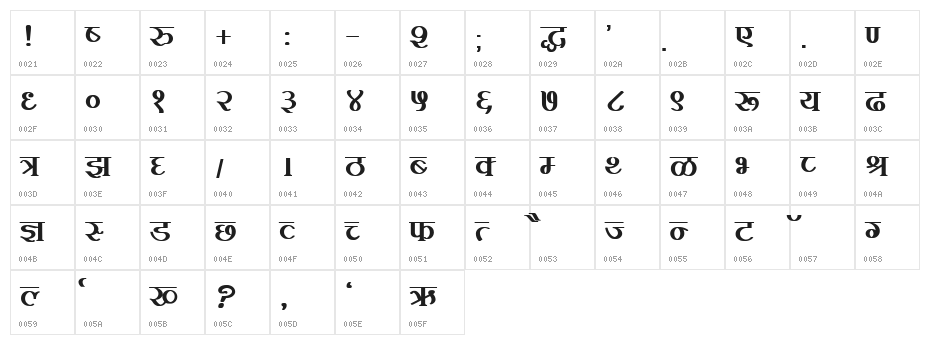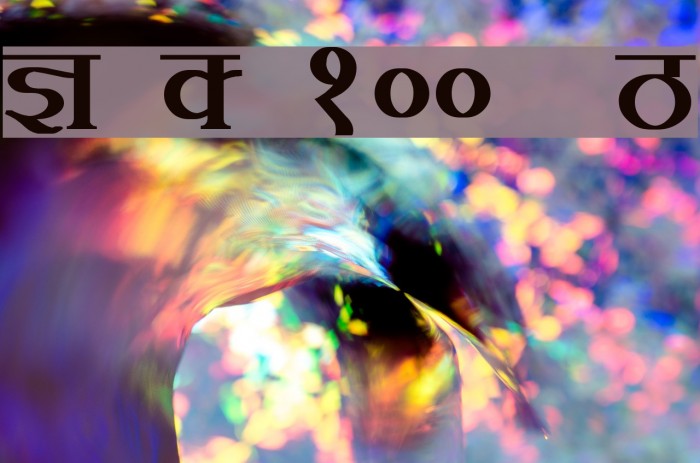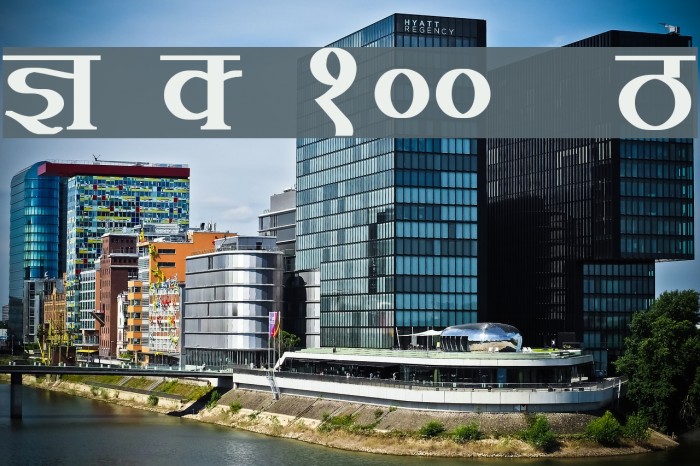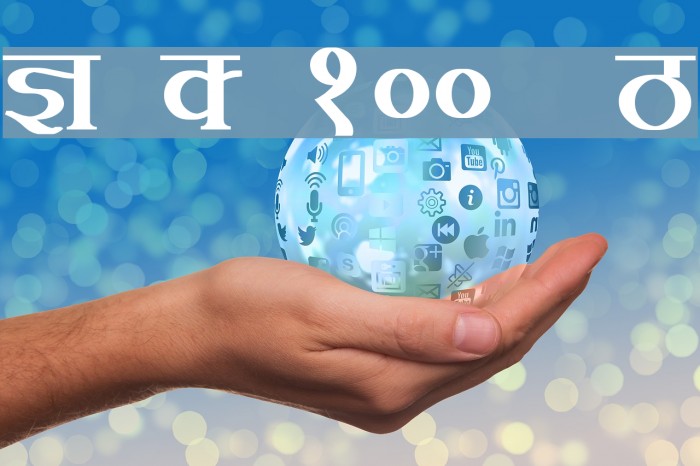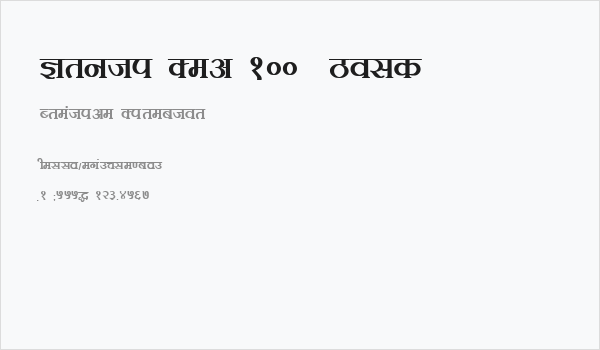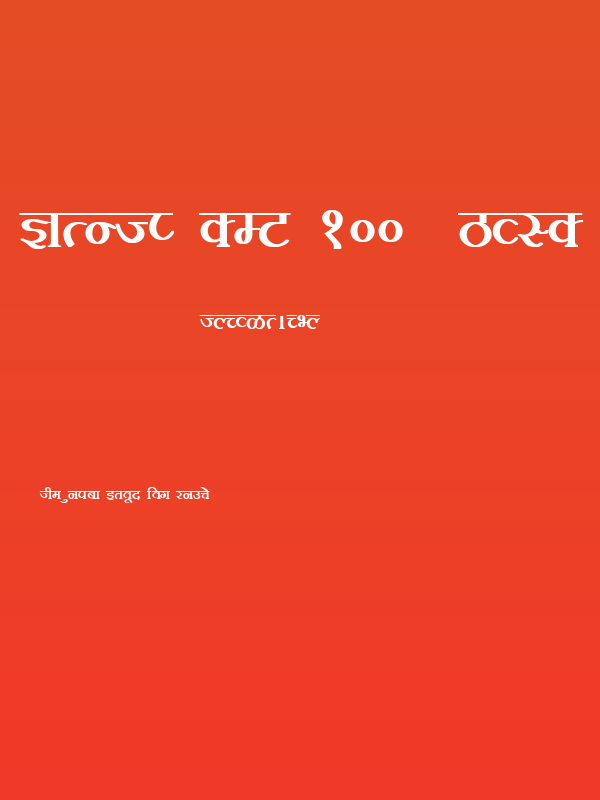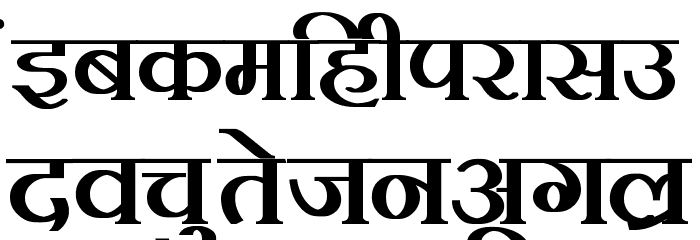
Kruti Dev 100 Bold Font
Kruti Dev 100 Bold Description
This font is a bold, decorative typeface with a strong presence, featuring intricate and ornate letterforms. The characters are designed with a high level of detail, showcasing a traditional style that is reminiscent of classic Indian scripts. The strokes are thick and consistent, providing a uniform appearance across all characters. The font includes a full set of numerals and special characters, maintaining the same decorative style. The overall design is both elegant and striking, making it suitable for projects that require a touch of cultural authenticity and visual impact.
| Overall Style | Traditional, Decorative |
| Proposed Projects | Ideal for cultural event posters, traditional invitations, and branding that requires an authentic Indian aesthetic. |